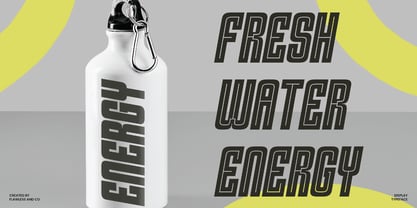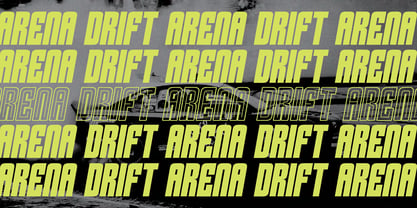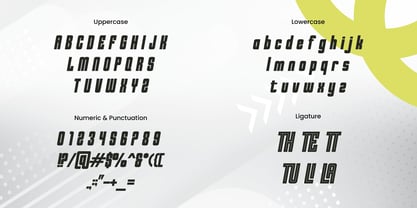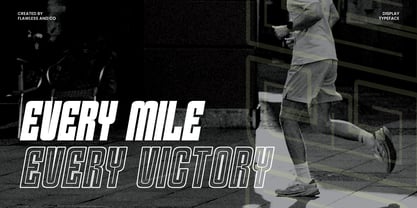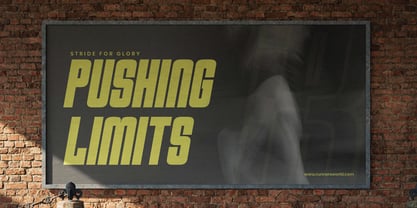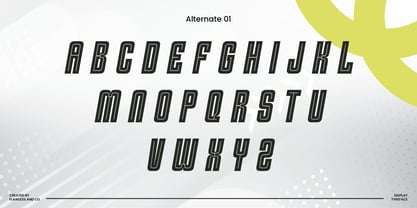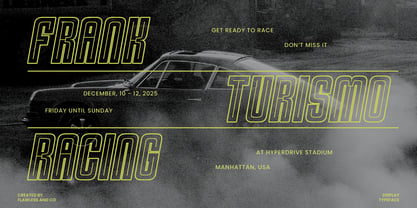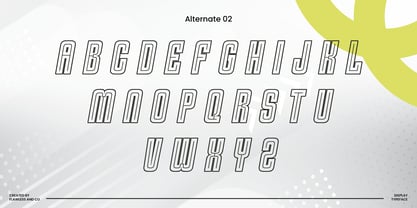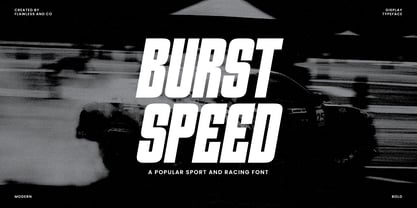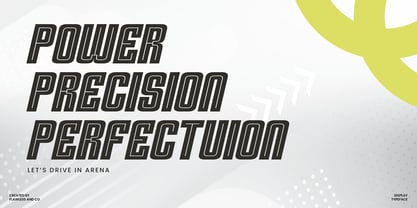
Burst Speed
Burst Speed is a bold and aggressive display typeface crafted for speed, energy, and high-impact visuals. Inspired by motorsports and action-packed competition, this modern sans serif font features slanted angles and a strong geometric build, making it perfect for racing posters, automotive branding, esports graphics, and sporty apparel. Whether you're designing for speedways or digital arenas, Burst Speed will push your typography to the limit.
Features :
Multilingual, Uppercase alphabet A-Z, Lowercase alphabet a-z, Numbers 0-9, Some punctuation,
Alternates & Ligatures